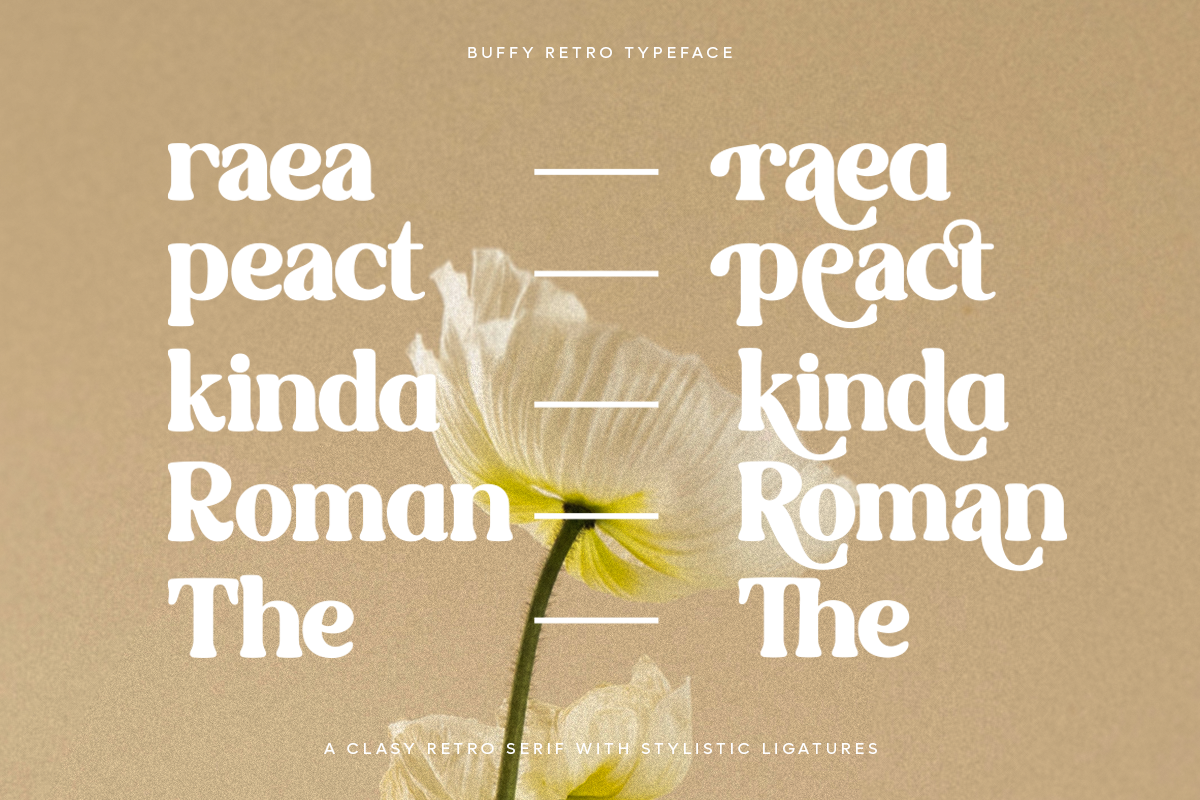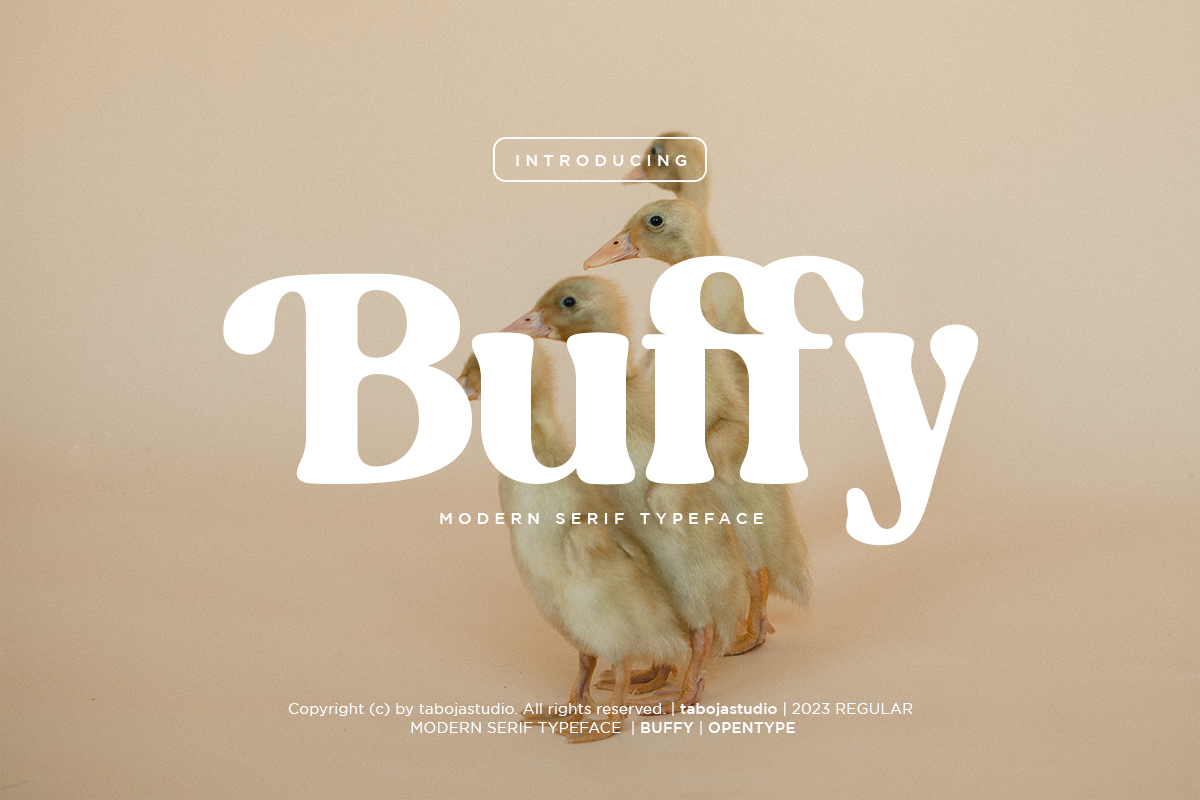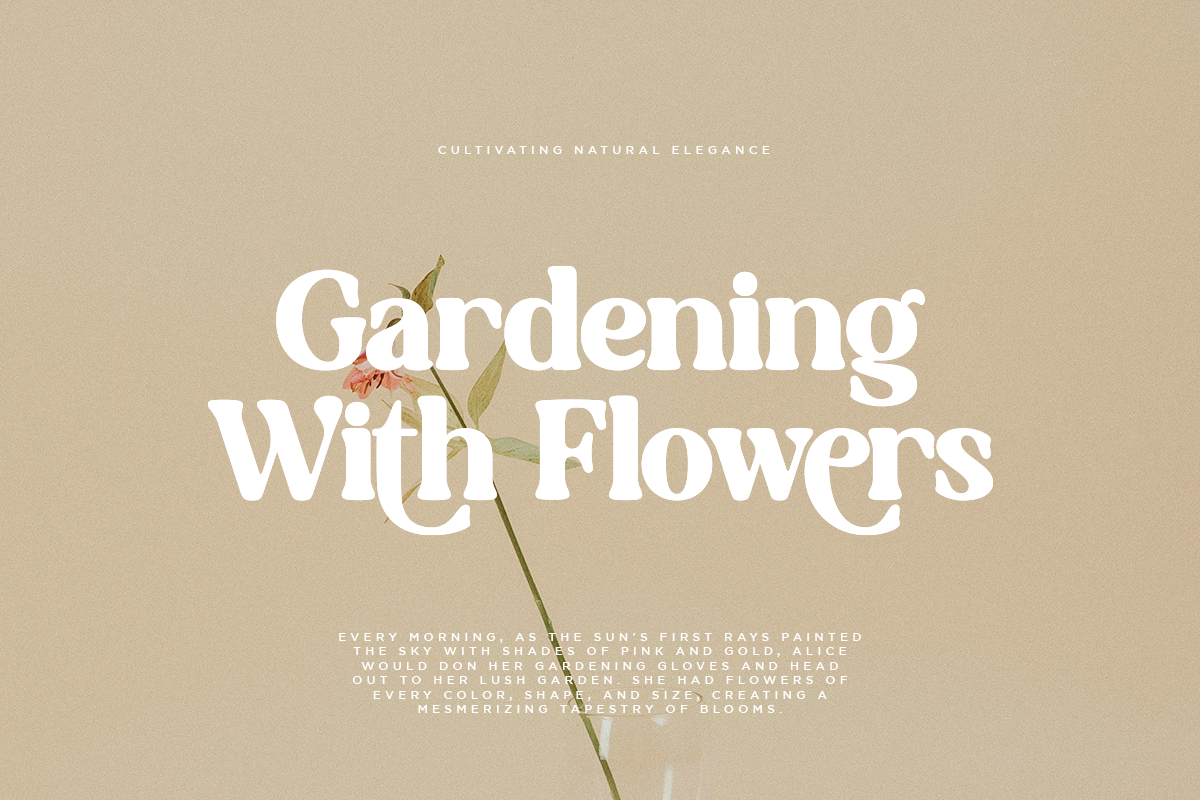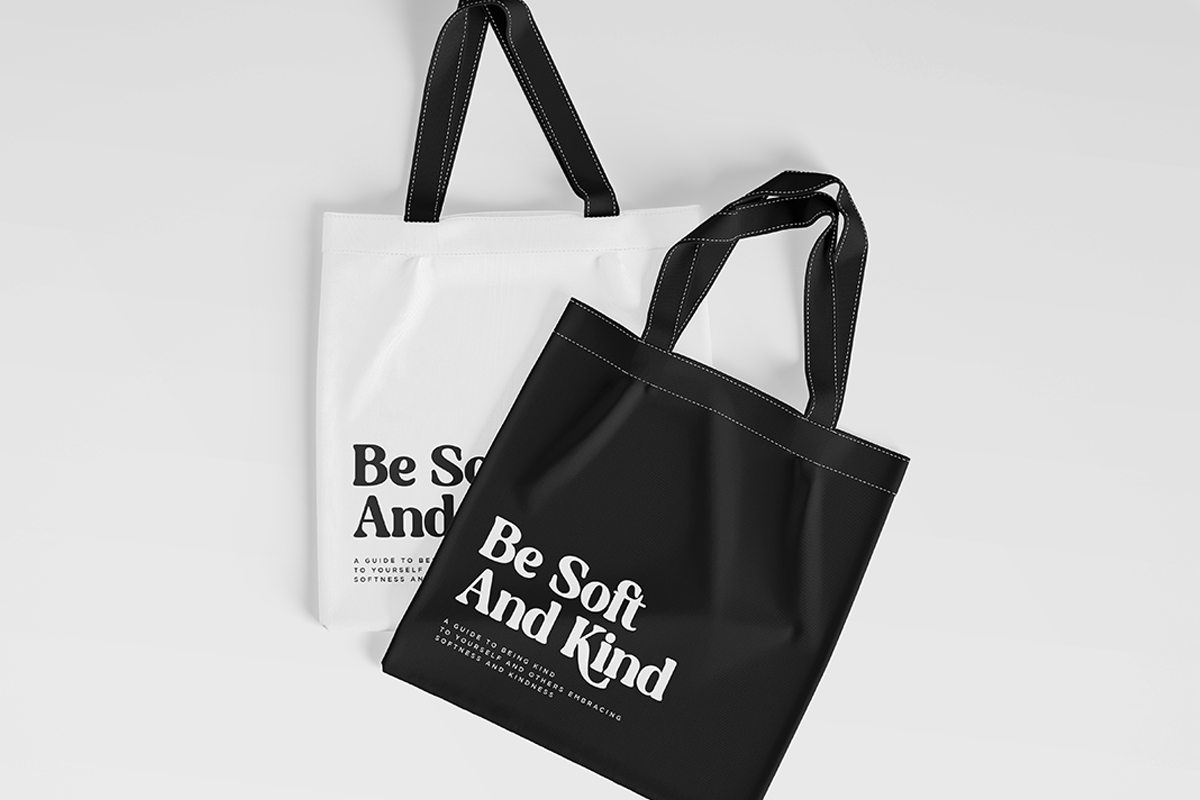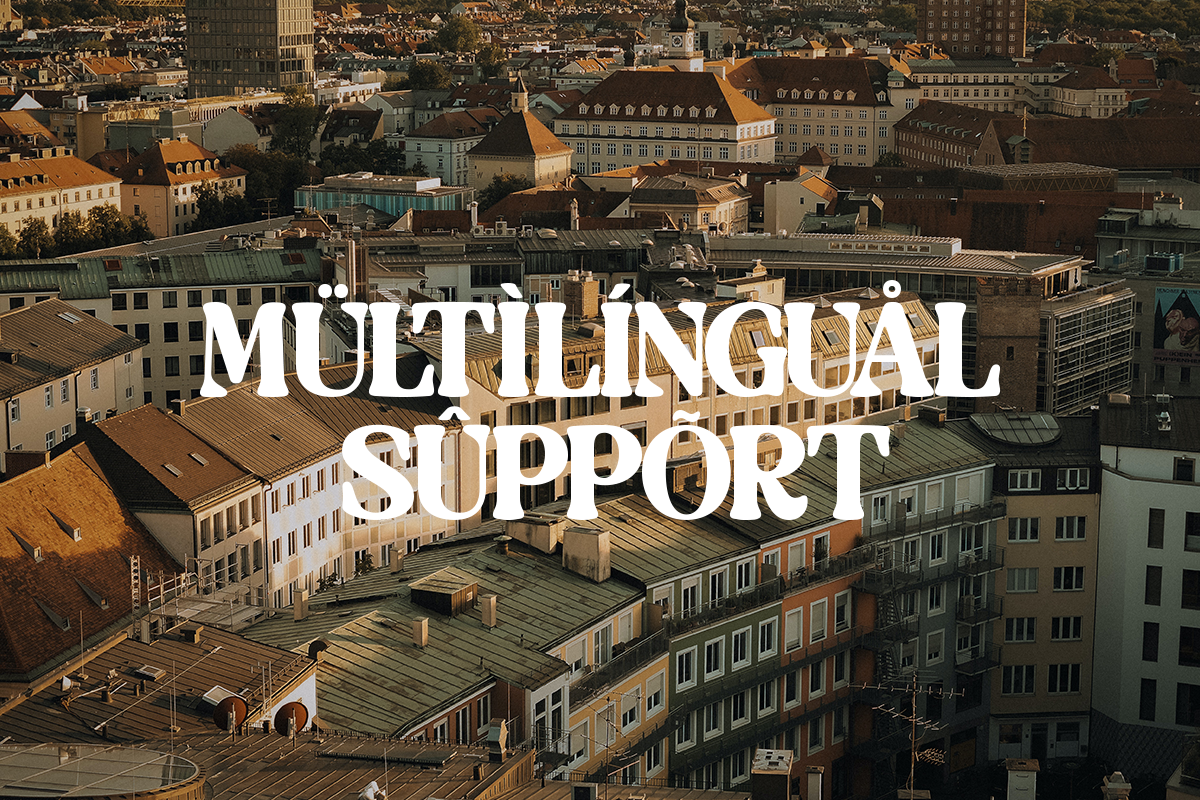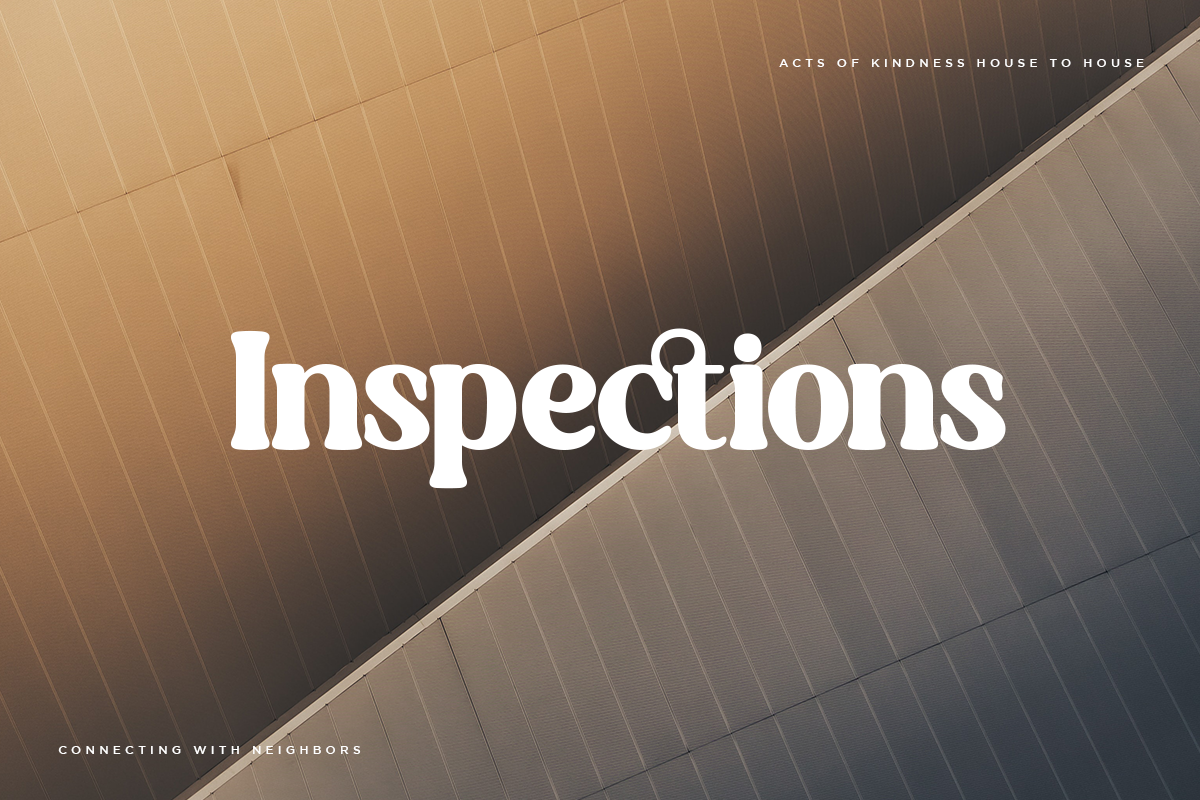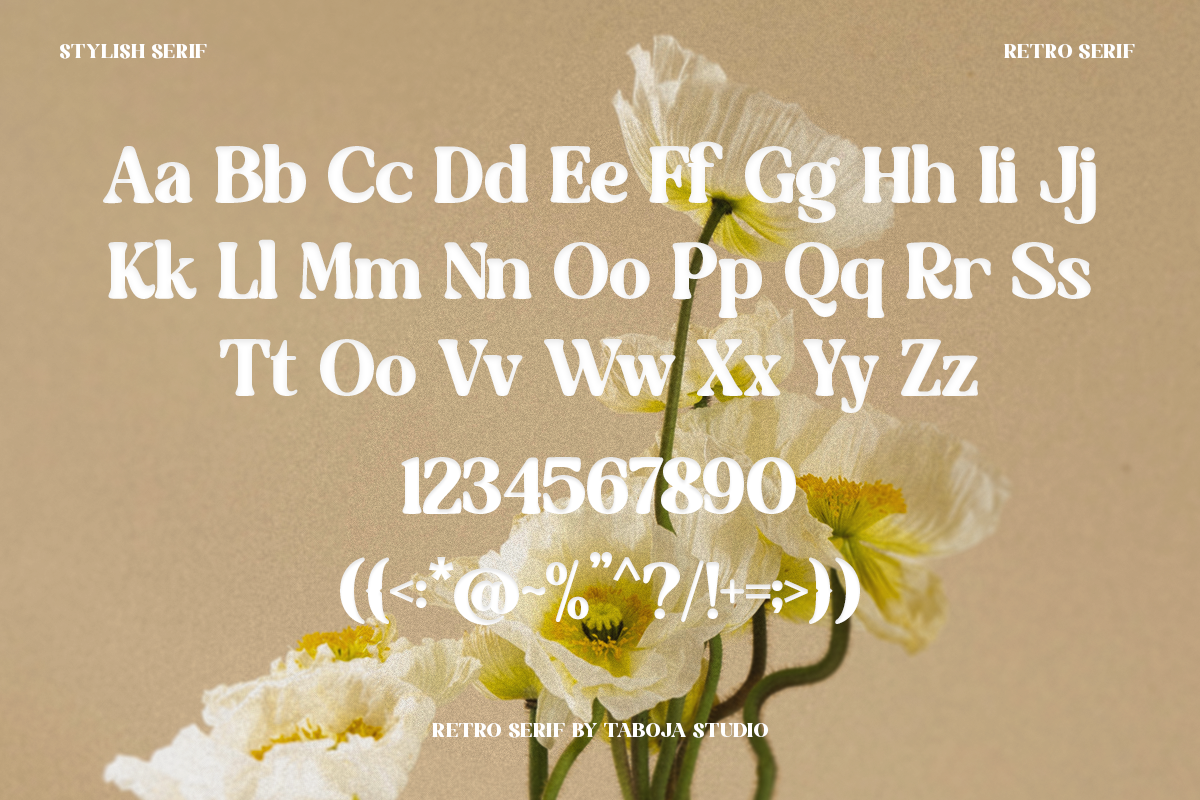
Buffy | Serif Font
Buffy Elegant Serif Typeface with a unique and bold serif display style. This font combines classic serif elements with modern touches, creating visually striking and bold appearance.
Buffy font would be perfect for making ideal graphic design projects, posters, and layouts that require unforgettable visual appeal.
Buffy Features:
- Uppercase And Lowercase
- Alternates And Ligatures